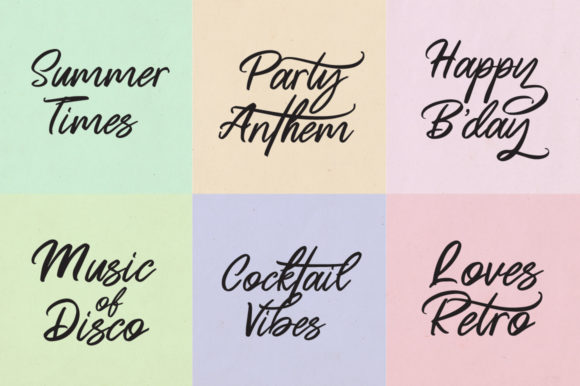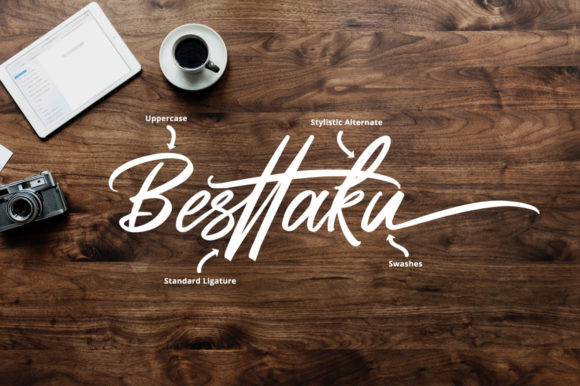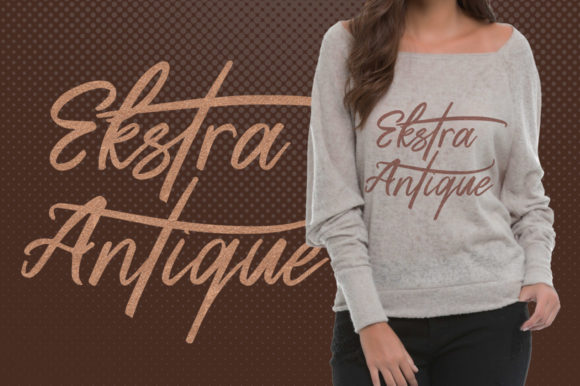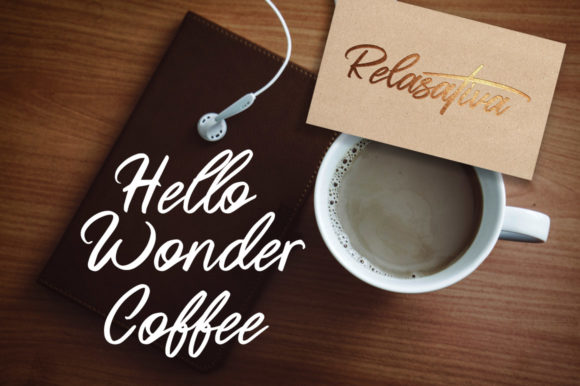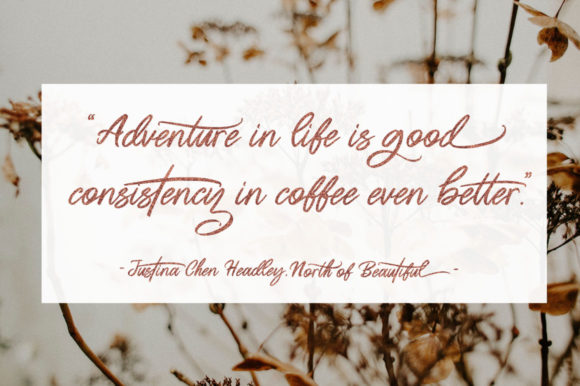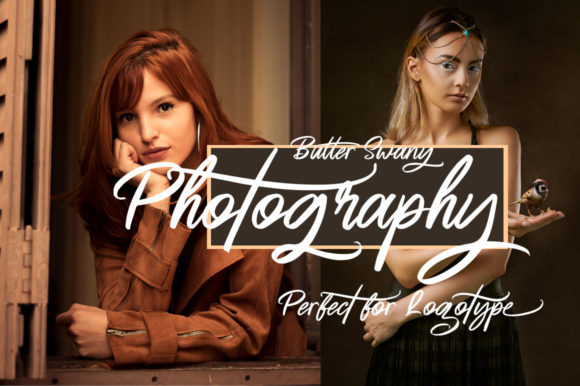
Unleashing Creativity with the Charming Butter Swany Font
As designers, we’ve all had those moments when the perfect font can elevate an entire project from ordinary to extraordinary. It’s like stumbling upon a hidden gem in a dusty archive, or discovering a long-lost favorite childhood book in a thrift store. The excitement is palpable, and the possibilities are endless. For me, that moment came when I stumbled upon the enchanting Butter Swany Font.
With its playful curves and whimsical charm, the Butter Swany Font is the perfect addition to any design project that requires a touch of warmth and personality. Whether you’re crafting a logo, designing a wedding invitation, or creating a social media campaign, this script font is sure to inspire and delight. As a valuable asset in any designer’s toolkit, the Butter Swany Font is a must-have for anyone looking to add a little magic to their creative endeavors.
Key Features of Butter Swany Font
- Font Size: Available in 8 font sizes, ranging from 8pt to 72pt, with 2pt increments.
- Resolution: Designed for high-resolution displays, with optimal performance at 300 DPI and above.
- Unique Characteristics: Features a unique blend of modern and vintage elements, with a distinctive “swan” shape in the letter “S”.
- Language Support: Supports over 200 languages, including Latin, Cyrillic, and Greek alphabets.
- Font Style: Available in Regular, Italic, Bold, and Bold Italic styles, with optional ligatures and swashes.
Butter Swany Font Review
First off, I love the elegant and whimsical feel of the Butter Swany font. It’s a great choice for projects that need a touch of sophistication and playfulness. ✨ The subtle swashes and flourishes add a lot of character to the font, making it stand out in a crowded market. ✨ The font’s versatility also shines through in its ability to work well in both print and digital formats.
One of the things that I appreciate about Butter Swany is its legibility. The font is clear and easy to read, even at smaller font sizes. This makes it a great choice for projects where readability is a top priority. ✨ Additionally, the font’s OpenType features allow for a wide range of stylistic options, making it easy to customize and adapt to different design needs.
- ⚠️ The font may not be suitable for projects where a more modern or edgy look is desired. Butter Swany’s classic, elegant feel may not be the best fit for these types of projects.
- ⚠️ The font’s swashes and flourishes can be quite ornate, which may make it difficult to use in projects with limited design space or a more minimalist aesthetic.
Overall, I think the Butter Swany font is a great addition to any designer’s toolkit. Its unique blend of elegance and playfulness makes it a versatile and effective choice for a wide range of projects. With its clear readability and OpenType features, it’s a great choice for designers looking to add a touch of sophistication to their work.
The Butter Swany Font is a playful, cursive script font that is perfect for adding a touch of elegance and whimsy to your designs.
Use it for:
Invitations, wedding stationery, and other special occasion materials.
Children’s books, educational materials, and other projects that require a fun and engaging tone.
Personal branding and marketing materials, such as business cards and social media graphics.